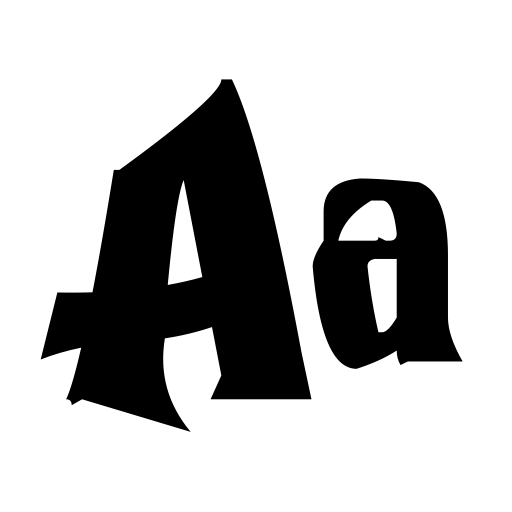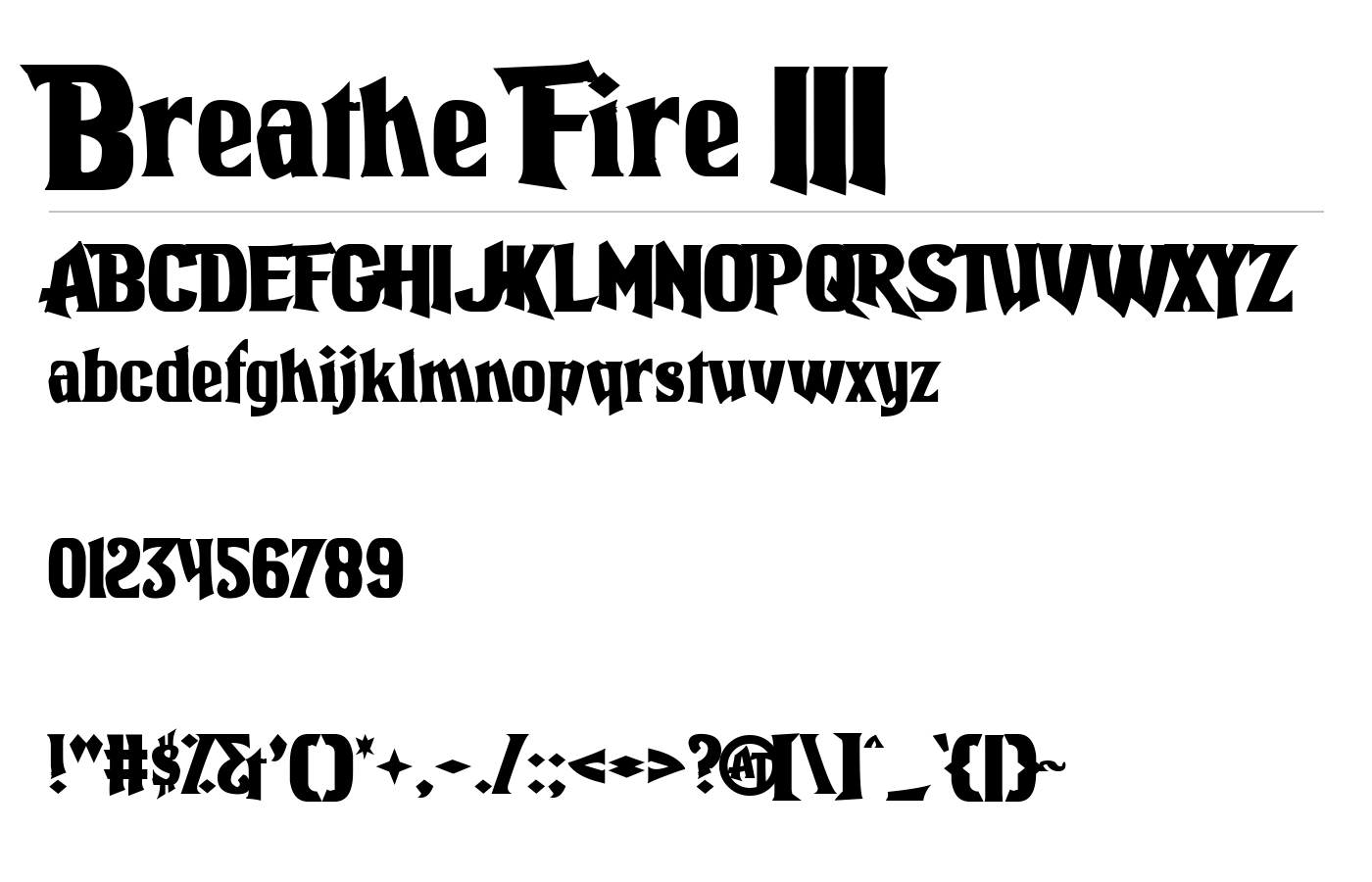
Breathe Fire III is a bold and dramatic serif font with a distinctive, sharp-edged design that captures attention with its high contrast and striking angular serifs. Its condensed letterforms and intense, almost gothic vibe make it perfect for impactful headlines, logos, and branding projects where a strong, vintage-inspired statement is desired. This font works best in creative contexts that call for a fierce, energetic personality and a touch of old-world flair.
Breathe Fire III Font
About Breathe Fire III Font
| Font family | Breathe Fire III Font |
| Designer | Allison James |